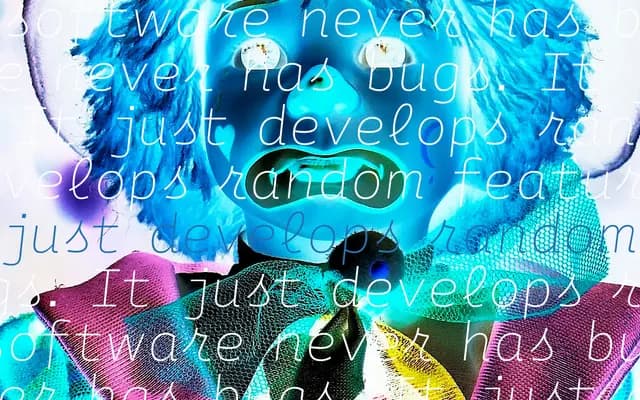
Cipher
A pseudo-monospaced typeface by Neil Summerour that widens only the characters harmed by a fixed grid, preserving columnar rhythm while improving readability across eight weights.
Rather than forcing every glyph into a uniform width, Cipher selectively releases characters like lowercase m and w to the space their forms actually need, while keeping numerals strictly monospaced for clean tabular alignment. The family runs across eight weights from ExtraLight to Black, each with a matching italic, and carries extensive Latin Extended, Greek and Cyrillic coverage suited to multilingual code editors and technical documentation. Box drawing and block element sets are included and calibrated to align precisely at the monospace grid, making the typeface directly useful for terminal user interfaces.
Cipher is built on a monospaced foundation but selectively widens certain characters such as m, w and wide Cyrillic glyphs where strict fixed-width would distort the letterform, placing it in a pseudo-monospace category distinct from both true monospace and proportional designs.